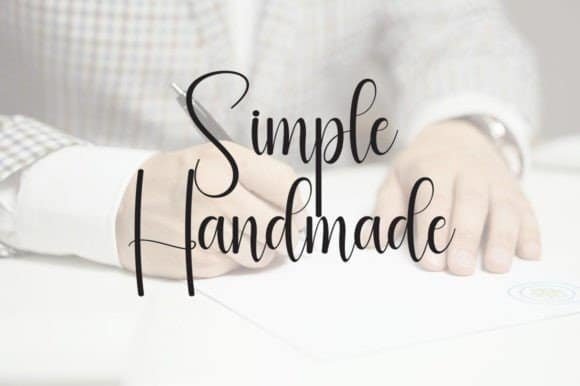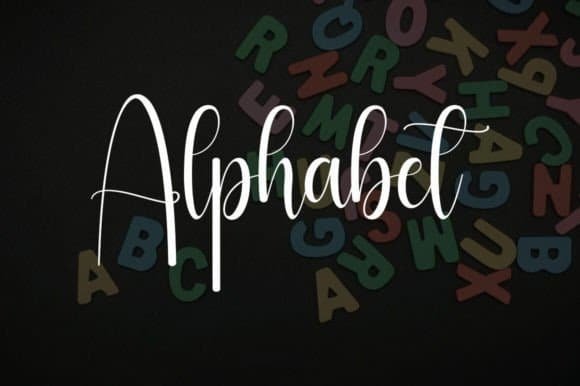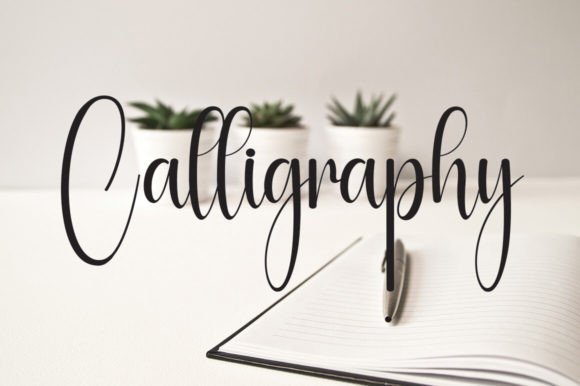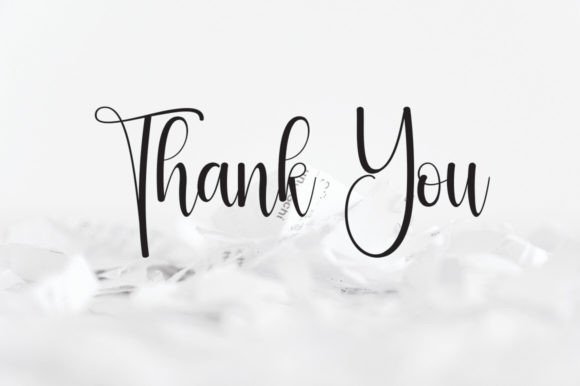
Boho Font
Introducing Boho, an enchantingly fluid, handwritten font that exudes a tender charm. Infusing a warm, romantic essence in your design concepts, Boho provides an expressively joyful typographic touch to all your creative endeavours. With its delightful cursive style, Boho brings a beautiful versatility that enhances the allure of any project. Elevate your designs to a new level of sophistication, celebrate the beauty of handwritten expression with the irresistible charm of Boho.